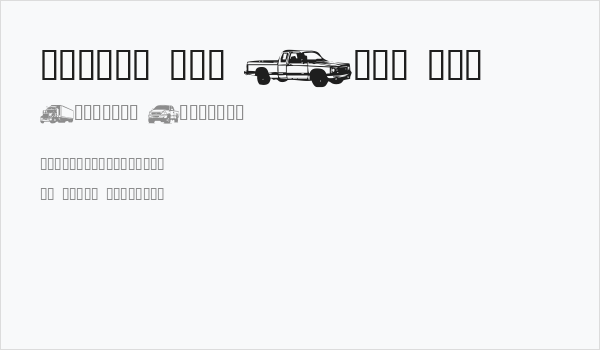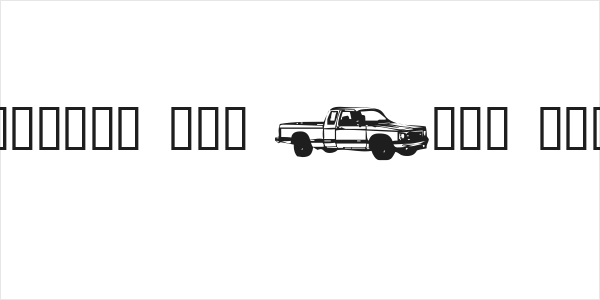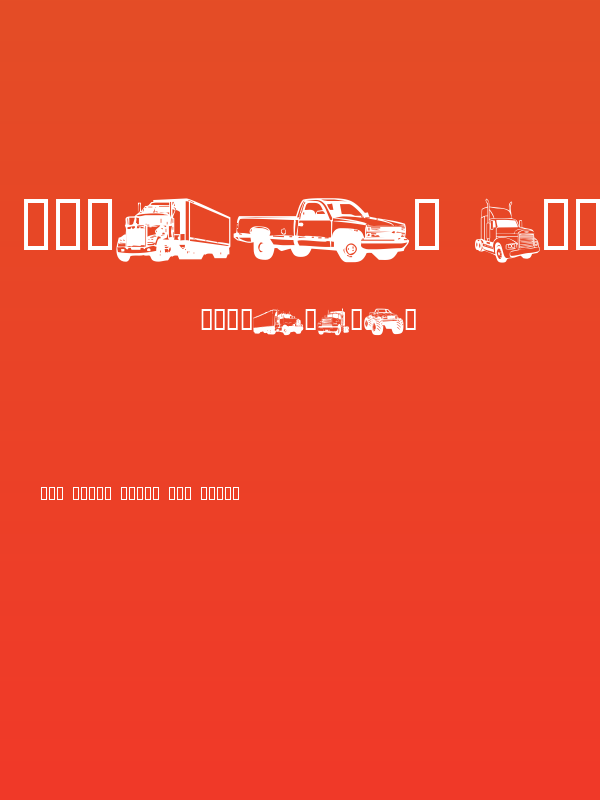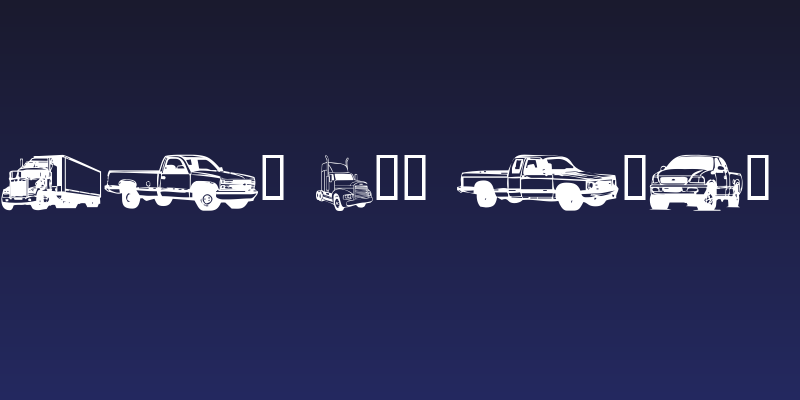
Trucks for Judy *S* Font
Trucks for Judy *S* Description
A decorative font featuring detailed illustrations of various trucks and vehicles as glyphs, each character represented by a unique truck silhouette in a consistent black outline style.
Overall StyleDecorative, playful, thematic
Use CaseLogos, headlines, themed graphics, educational visuals
Proposed ProjectsChildren's books, automotive event posters, themed party invitations, educational materials about vehicles.